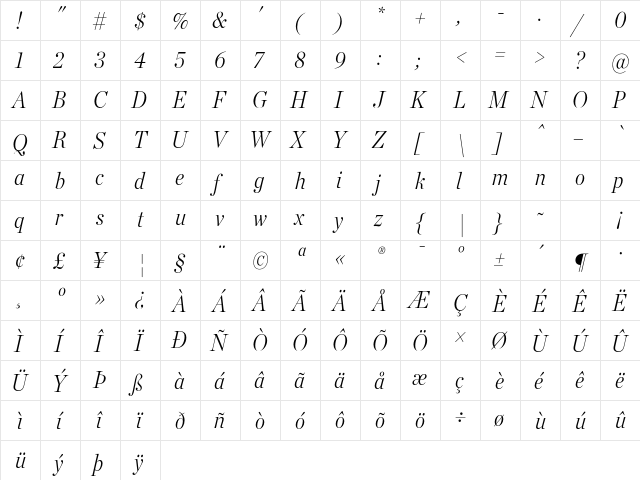
Chronicle Disp Cond Light Italic Font Preview
| Foundry | Hoefler & Frere-Jones |
| Designer | Hoefler & Frere-Jones |
Design Context for Chronicle Disp Cond Typeface
Chronicle Disp Cond offers clean, dependable letterforms without strong stylistic allegiance, making it a practical choice for designers who need flexibility. Its italic angle brings a sense of urgency and motion to the letterforms. Its slender proportions lend an understated elegance to any composition. Its narrow stance lets it pack a punch even in space-constrained designs.
Pro Tip: Use Chronicle Disp Cond for emphasis, pull quotes, and subheadings where its slanted energy can add rhythm to the layout.